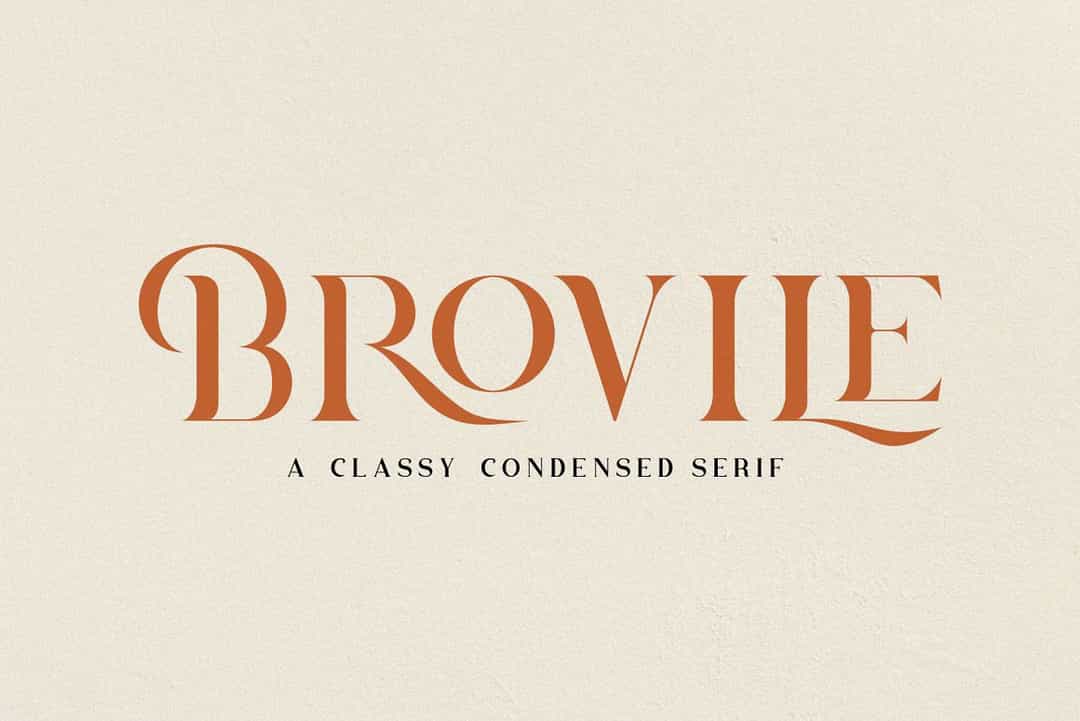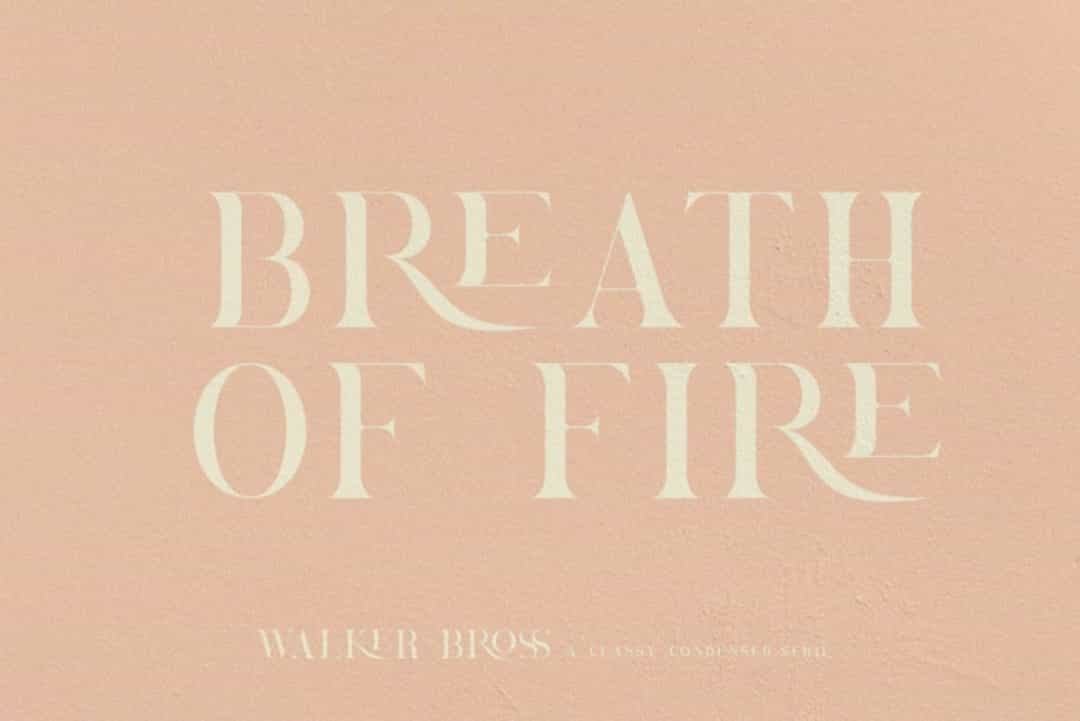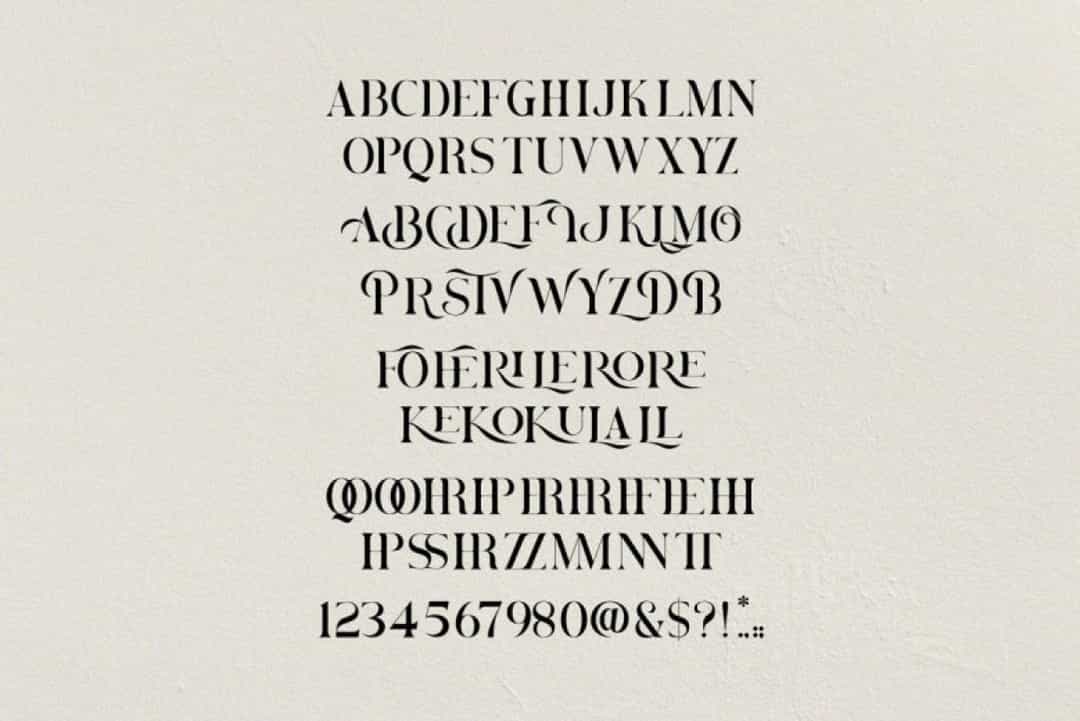
Brovile Font is an eye-catching font with its wedge serif that will instantly catch your attention! A blend of vintage and modern, it makes Brovile perfect for logos, editorial and web design projects with its sharp serifs that feature thin strokes to give an iconic mid century architecture vibe.